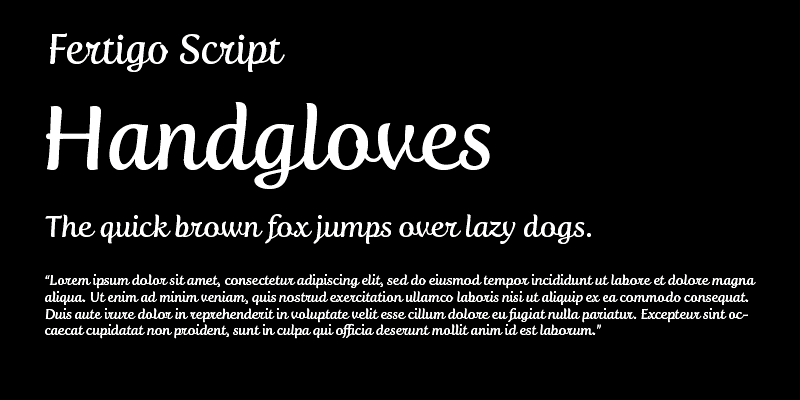
In the process of making an italic for Fertigo Pro, I decided to make a connected script based on this. Fertigo Pro Script has extended language support, nice ornaments, ligatures and finalized forms (OpenType).
Jos Buivenga lives and works in Arnhem. He started designing type in 1994 and started his exljbris Font Foundry ten years later. He is most known for his Museo font family and also for the way he markets his typefaces.